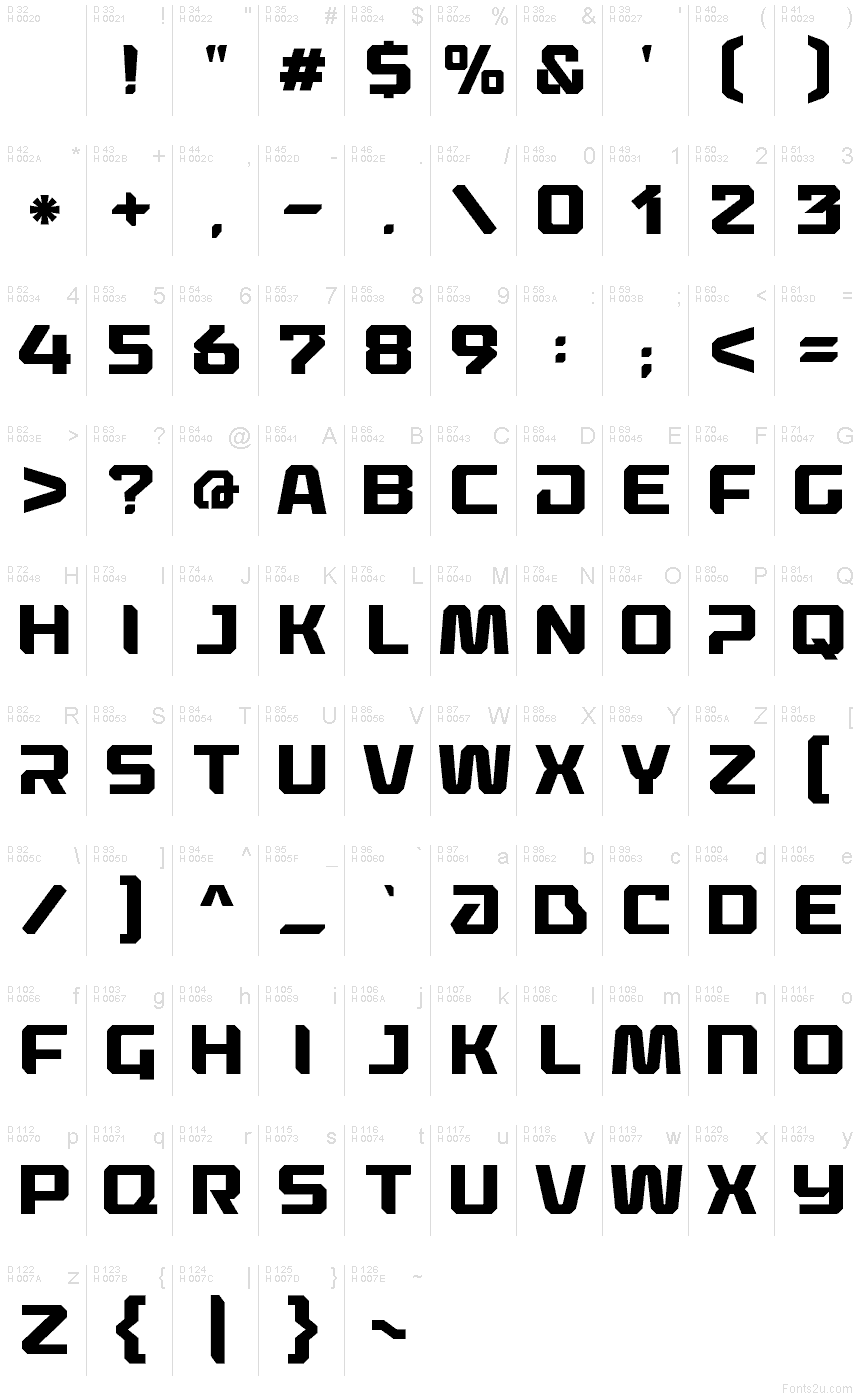
Cyberank
Cyberank font by Namara Creative is a free bold techno display font. Built around razor-edged geometry, it carves letters from solid blocks with sliced corners, tight joins, and squared counters that feel machined rather than drawn. The rhythm is compact and punchy, so words lock up like a futuristic nameplate while the sharp angles add a clean, high-voltage snap.
Using Cyberank, headlines hit hard on esports logos, sci‑fi posters, game titles, tech branding, gadget packaging, and UI HUD overlays. Its sturdy forms stay readable at large sizes and hold texture well for chrome, neon, or glitch effects—this free font loves dramatic treatments. Pair with a neutral sans in light weights and give it slightly tight tracking for a welded, monolithic look.